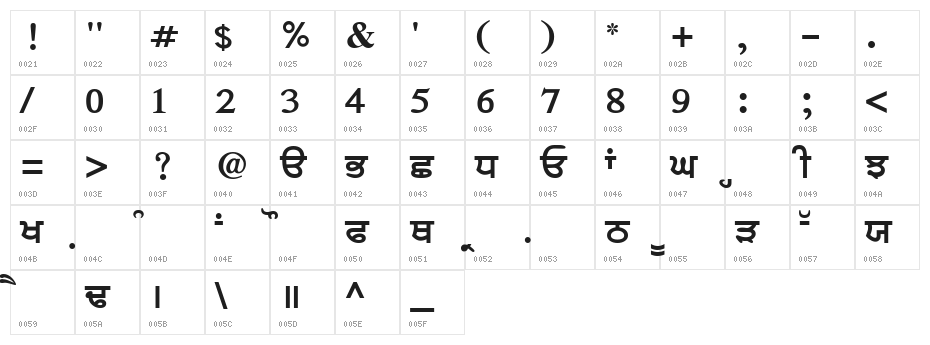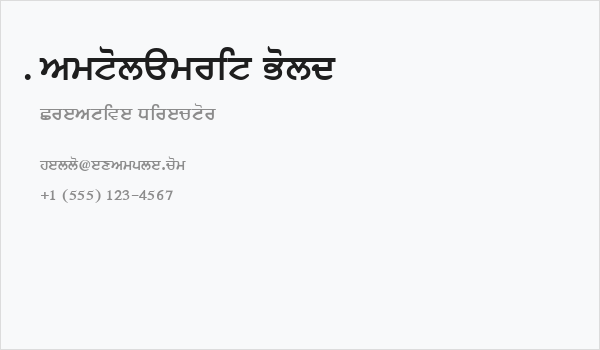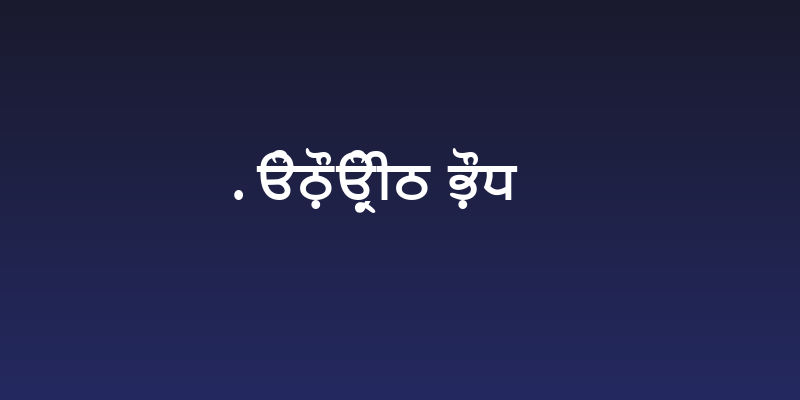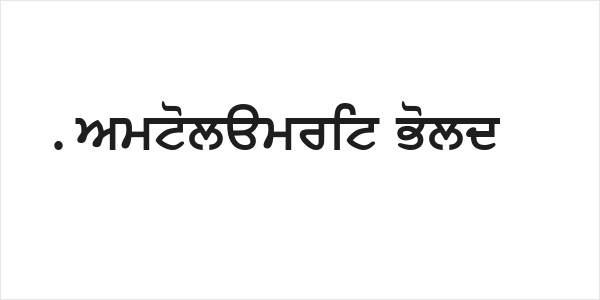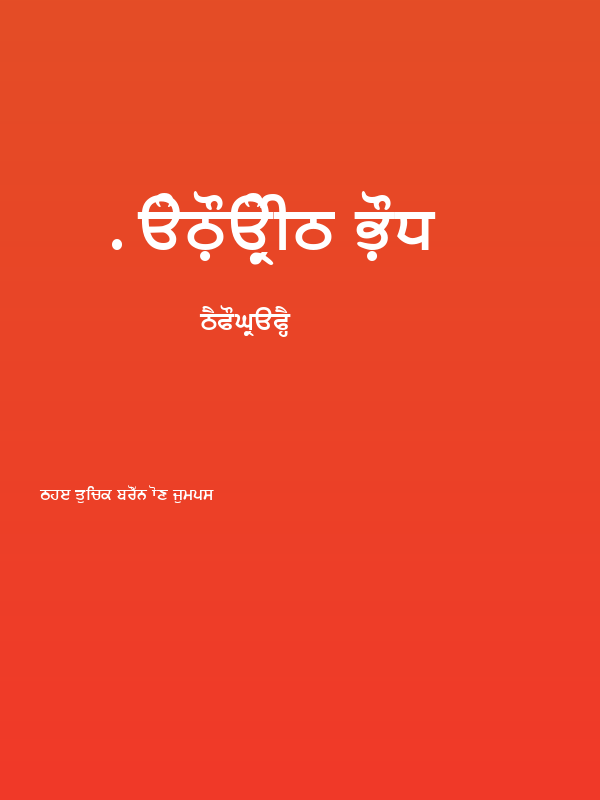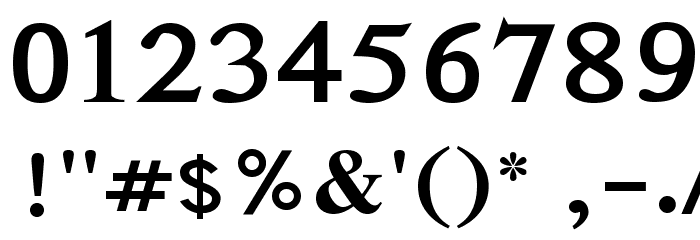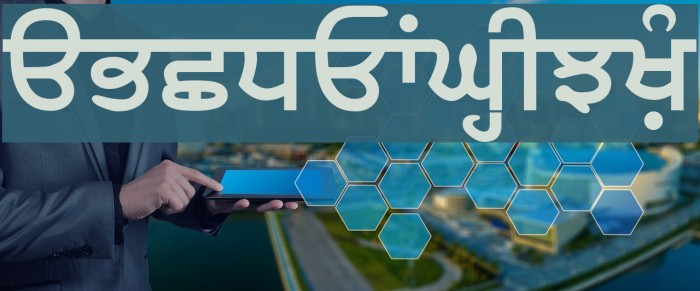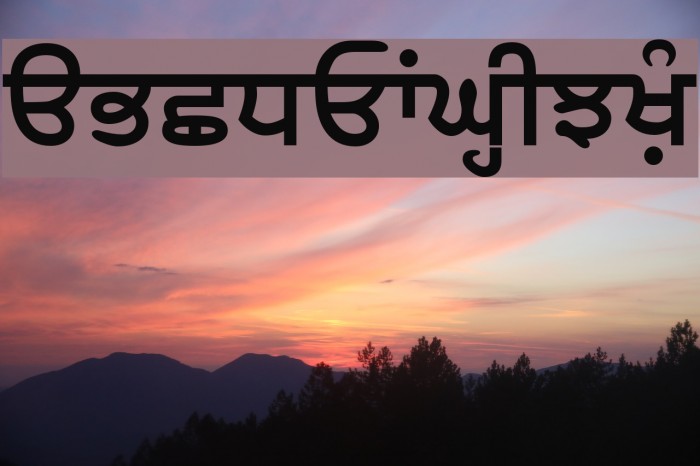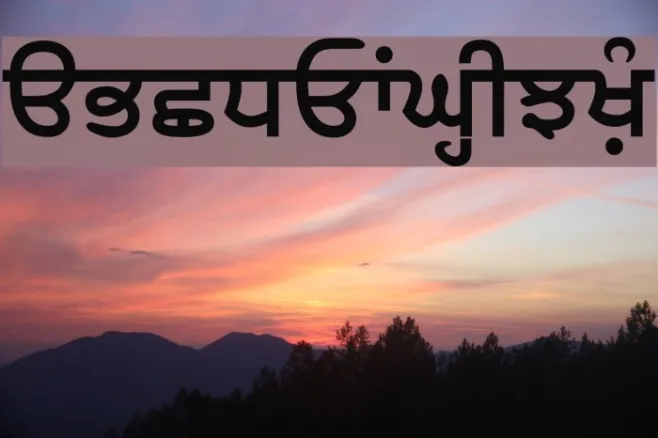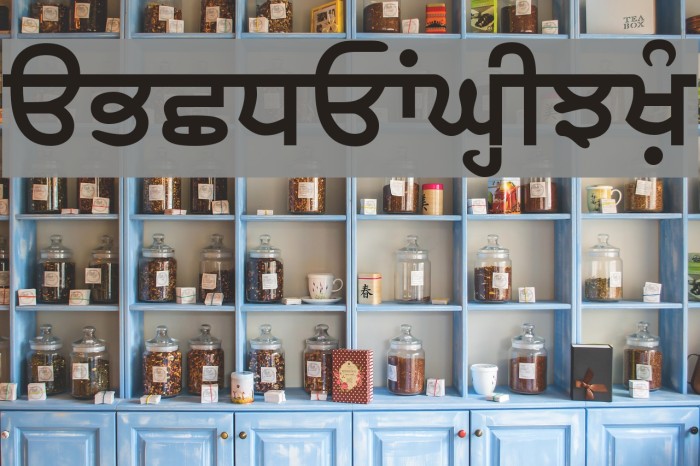
SamtolAmrit Bold Font
SamtolAmrit Bold Description
This font features a bold and striking design, characterized by its thick strokes and strong presence. The characters are well-defined with a modern aesthetic, making them highly legible. The numerals and special characters are consistent with the overall style, providing a cohesive look. The font's boldness makes it suitable for attention-grabbing headlines and impactful designs. Its clean lines and structured form lend a professional and contemporary feel, ideal for various design projects.
| Proposed Projects | Ideal for headlines, posters, branding, and advertising materials. |